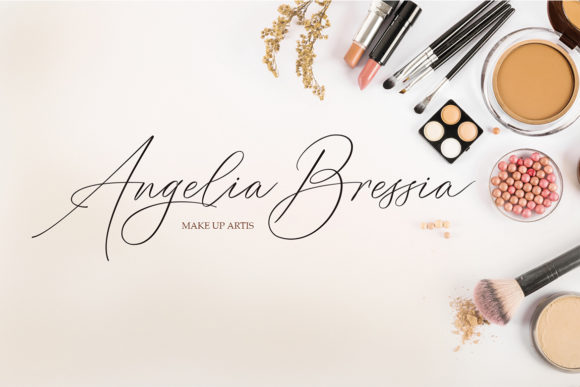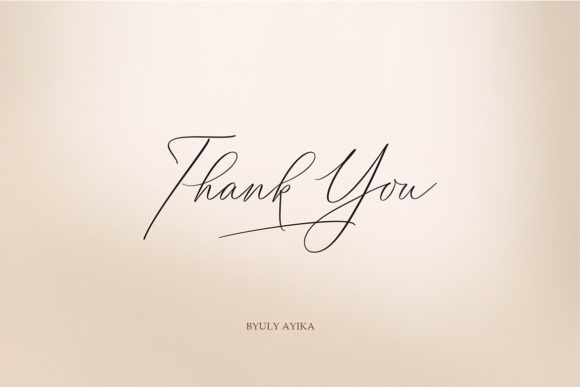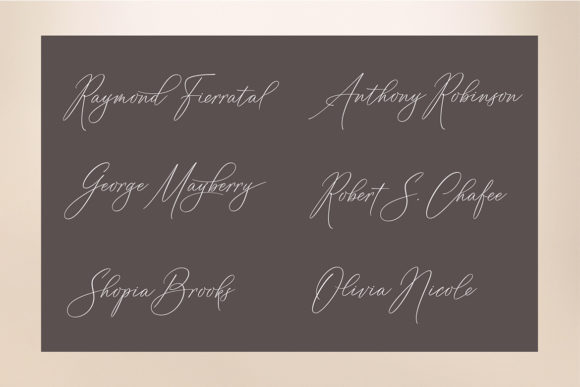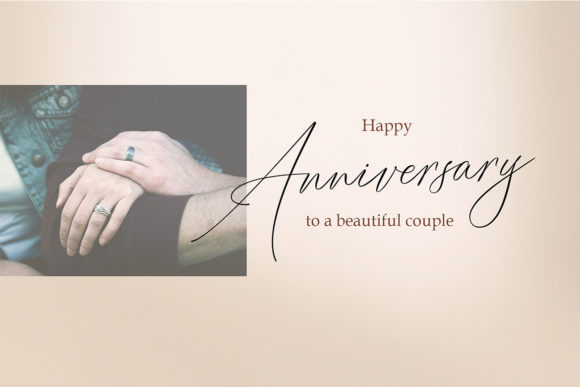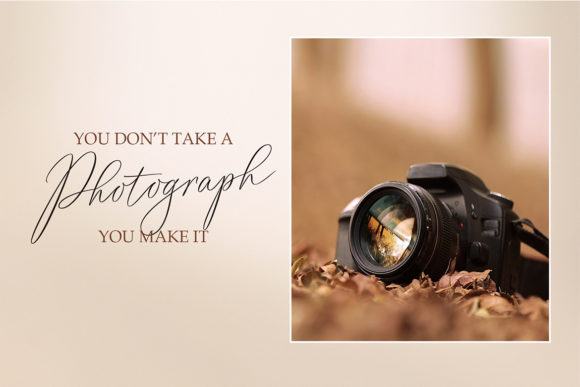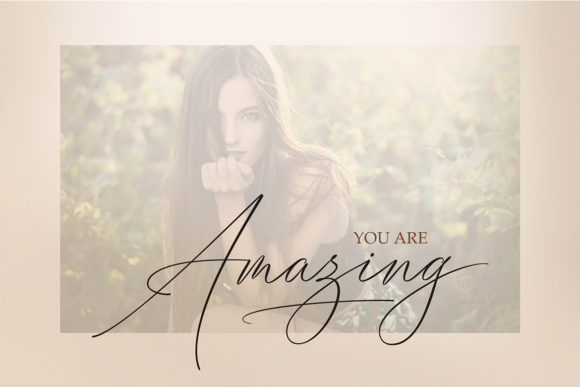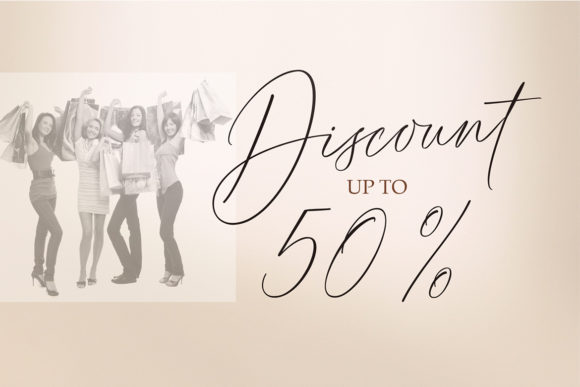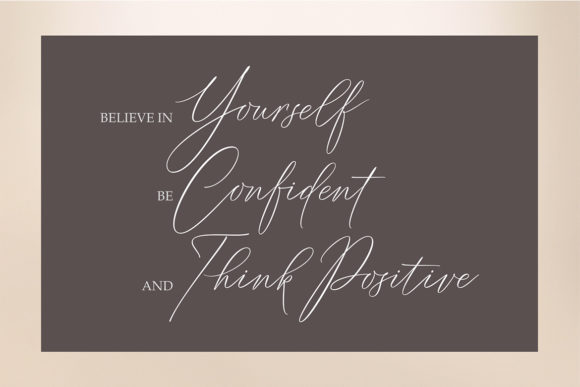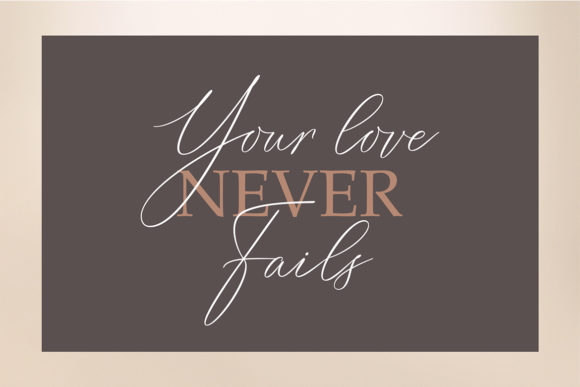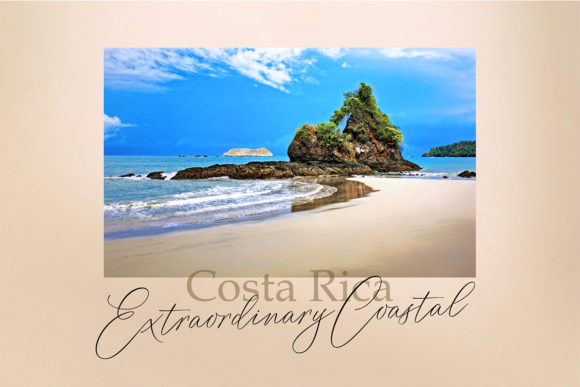
HomeScript FontsVignette Font Script Fonts Vignette Font FacebookXPinterestWhatsApp Vignette Font Poster 2 Vignette Font Poster 3 Vignette Font Poster 4 Vignette Font Poster 5 Vignette Font Poster 6 Vignette Font Poster 7 Vignette Font Poster 8 Vignette Font Poster 9 Vignette Font Poster 10 Vignette Font Poster 11 About Vignette Font Vignette is a modern, smooth and fun handwritten font with a unique look. Get inspired by its bold flavor! DOWNLOAD ON CREATIVE FABRICAThis font is sold and delivered by Creative Fabrica. Font Canyon may earn a commission if you buy through this link. People also explored Qanthura Font Christmas Style Font Dominatrix BB Theater Contest Font Camelia Script Font Wing Kitchen Font Flowers Font The Athletico Font Hello Maria Font 380 0 TagsVignette Font Previous articleJameela FontNext articleSomeday Font LEAVE A REPLY Cancel reply Comment: Please enter your comment! Name:* Please enter your name here Email:* You have entered an incorrect email address! Please enter your email address here Website: Save my name, email, and website in this browser for the next time I comment. Personal Use Free Amelline Personal Use Free Read more about this font Makcex Personal Use Free Read more about this font Ammanda Personal Use Free Read more about this font The Fourth Avenue Personal Use Free Read more about this font BLOG Transform Your Website: Elevate Your Typography with 7 Best Web Font Generators Are you ready to transform your website's typography from ordinary to extraordinary? Great! Today, we're diving into the world of web font generators, which... How to Install and Use Fonts on Windows, macOS, and Web Projects Free vs Paid Fonts: Why Investing in Premium Fonts Is Worth It Top 7 Google Fonts Alternatives for Faster and Privacy-Friendly Web Design (2025)